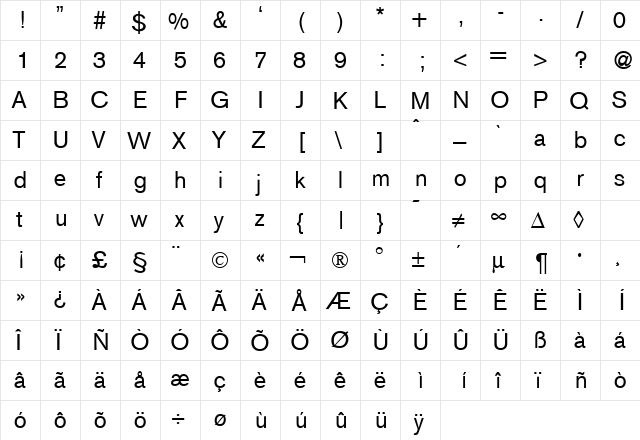
Akzent Regular Font Preview
Akzent Regular
Akzent Regular Font Details
Design Context for Akzent Typeface
Akzent offers clean, dependable letterforms without strong stylistic allegiance, making it a practical choice for designers who need flexibility.